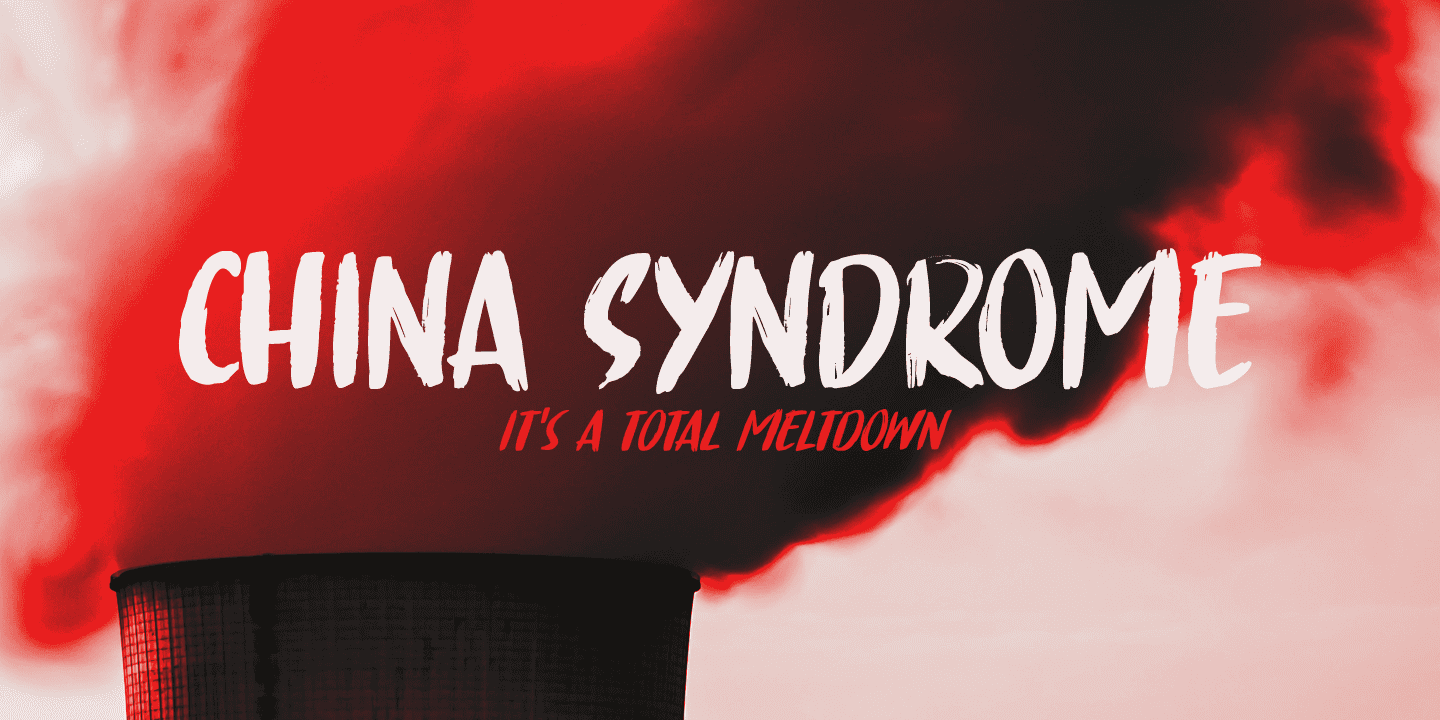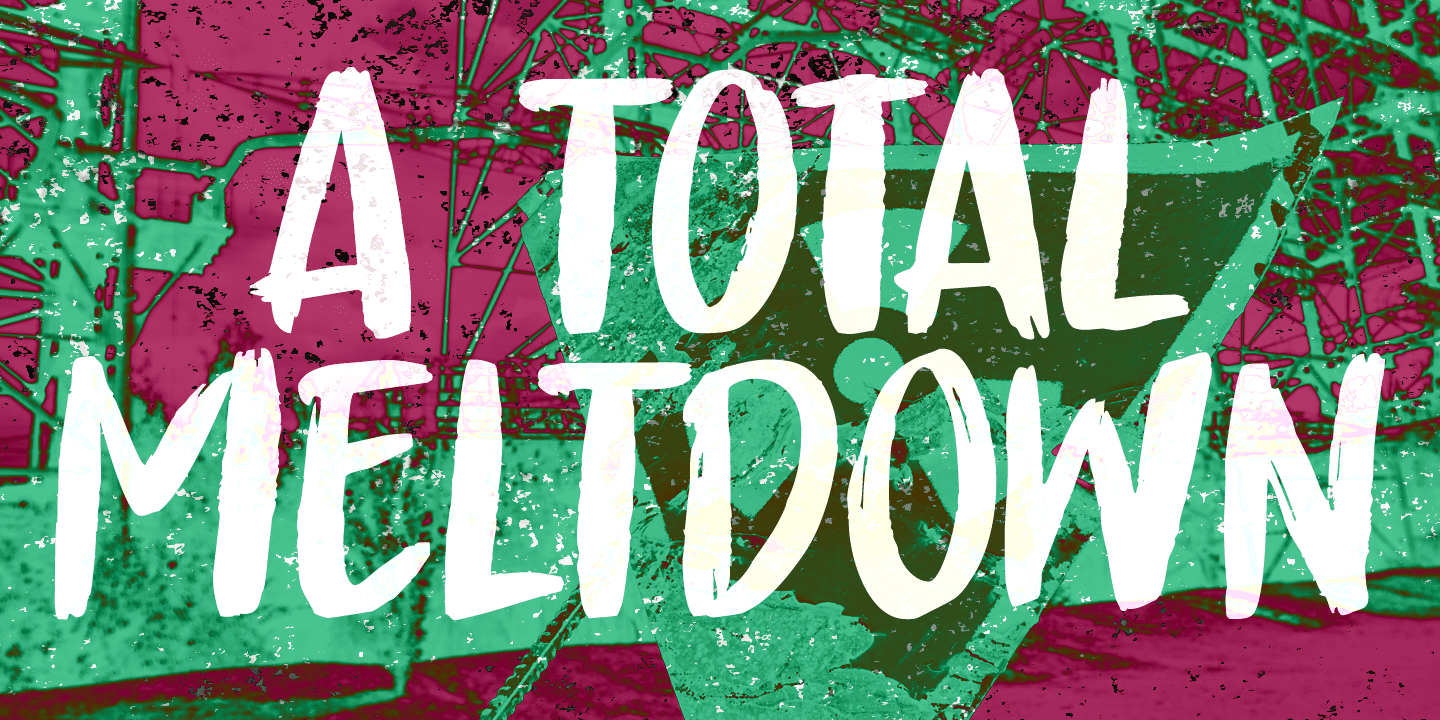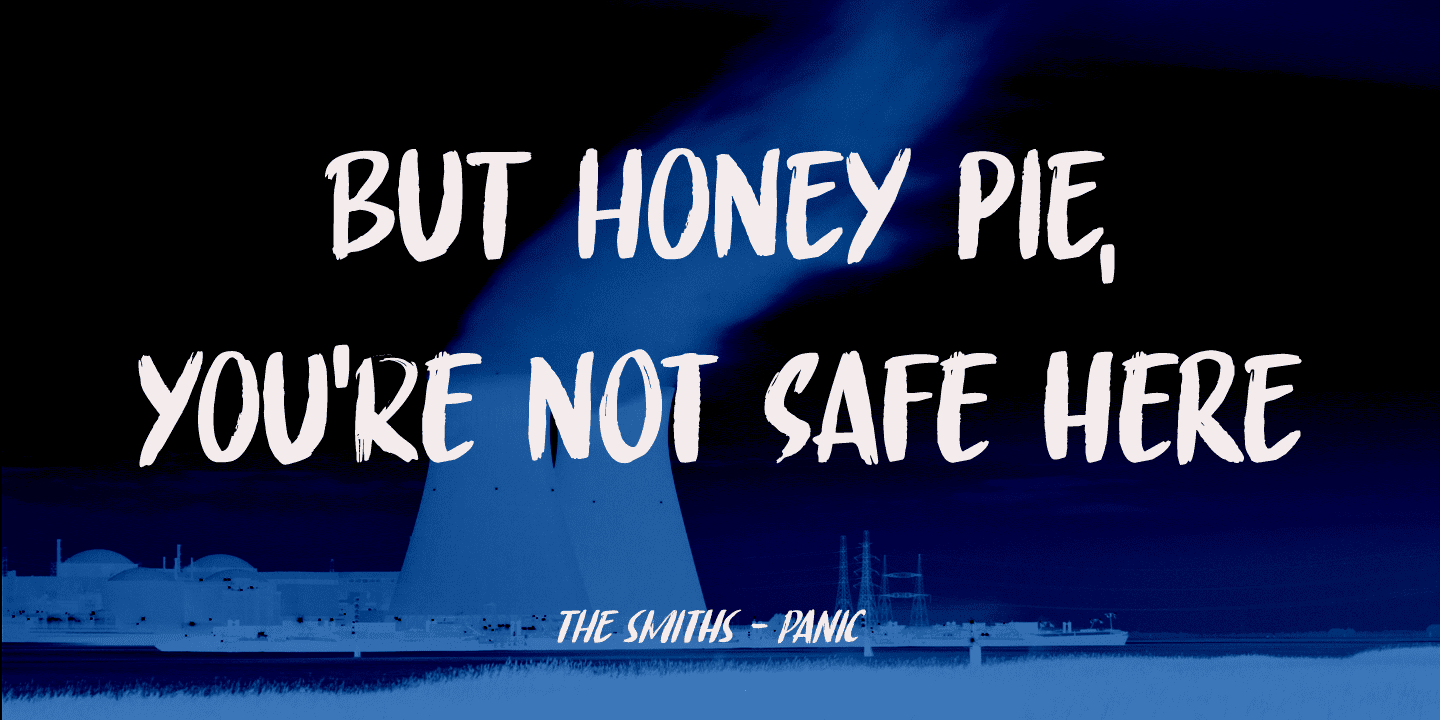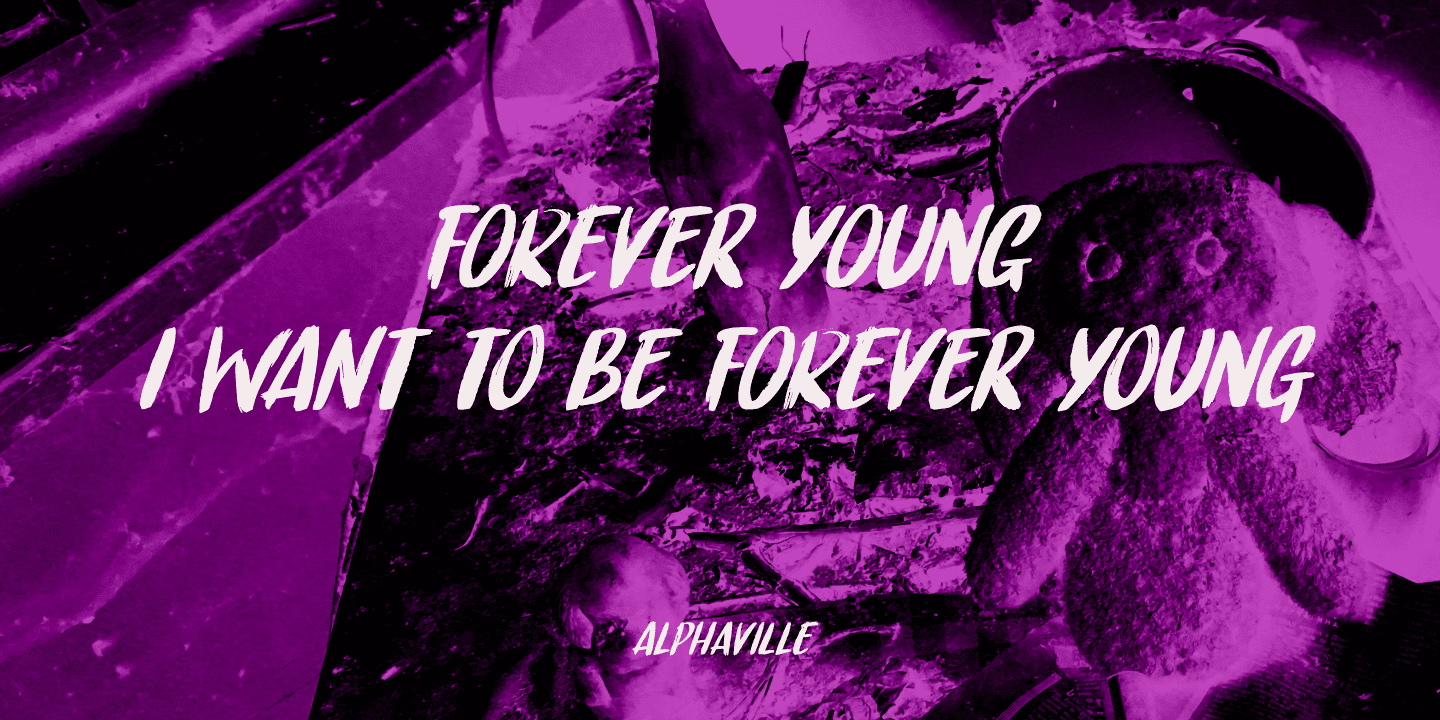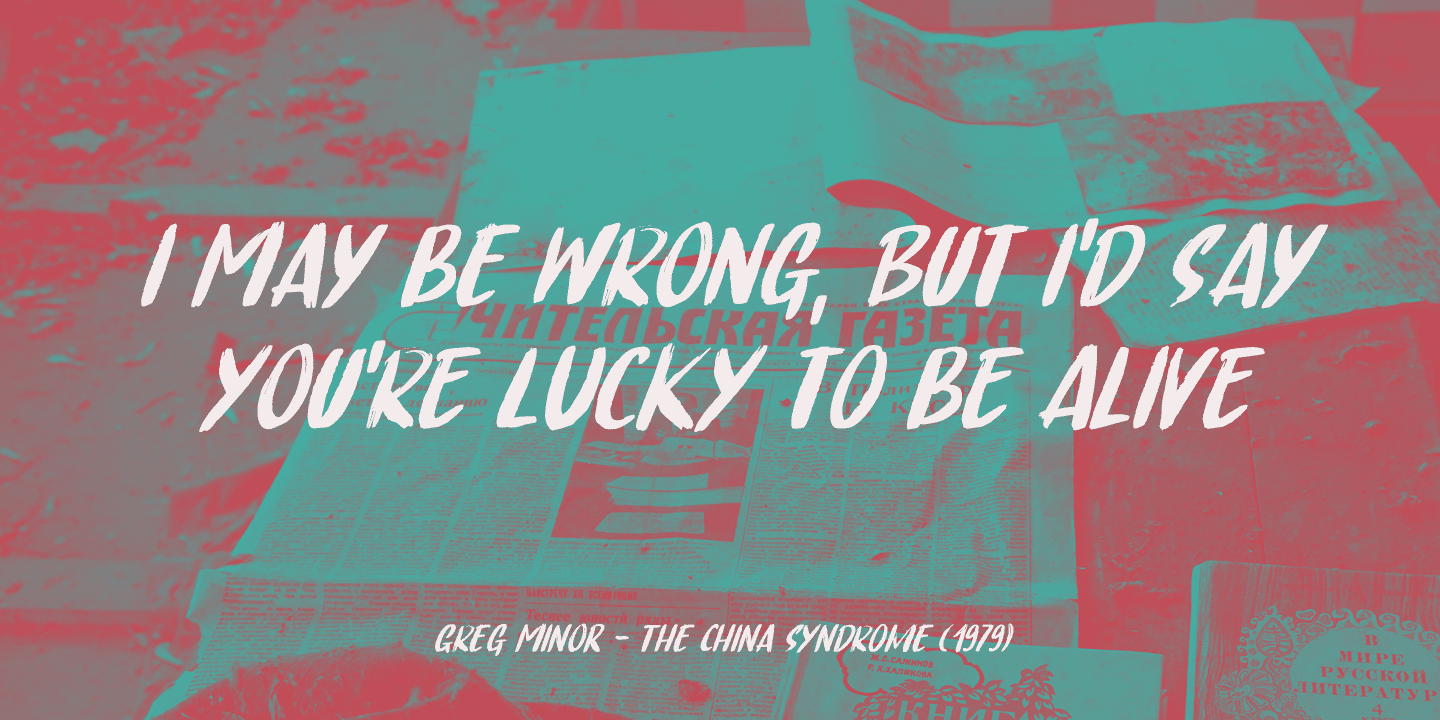
China Syndrome Family (2 fonts)
China Syndrome is a legible brush font - ideal for your product packaging and halloween posters. Maybe use it for a metal album cover, a book about nuclear disasters or, dunno, the logo of your really strong coffee brand.